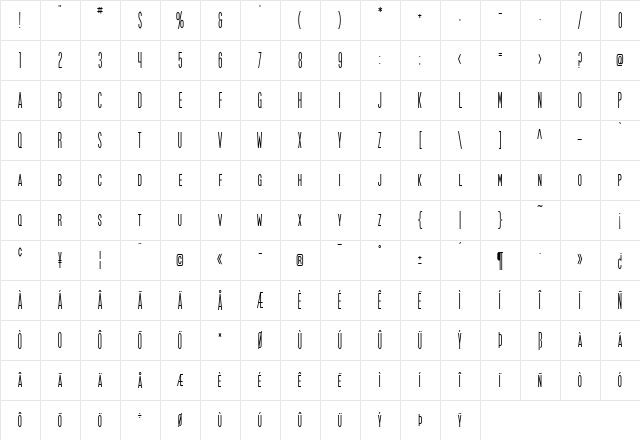
SF Movie Poster Condensed Regular
Designer: ShyFonts Type Foundry
Complete SF Movie Poster Condensed Regular glyph index. Displaying only characters natively supported by SF Movie Poster Condensed Regular font.
Design Context for SF Movie Poster Condensed
SF Movie Poster Condensed is a composed and adaptable typeface that performs quietly and consistently across a wide range of design contexts. Its narrow stance lets it pack a punch even in space-constrained designs.